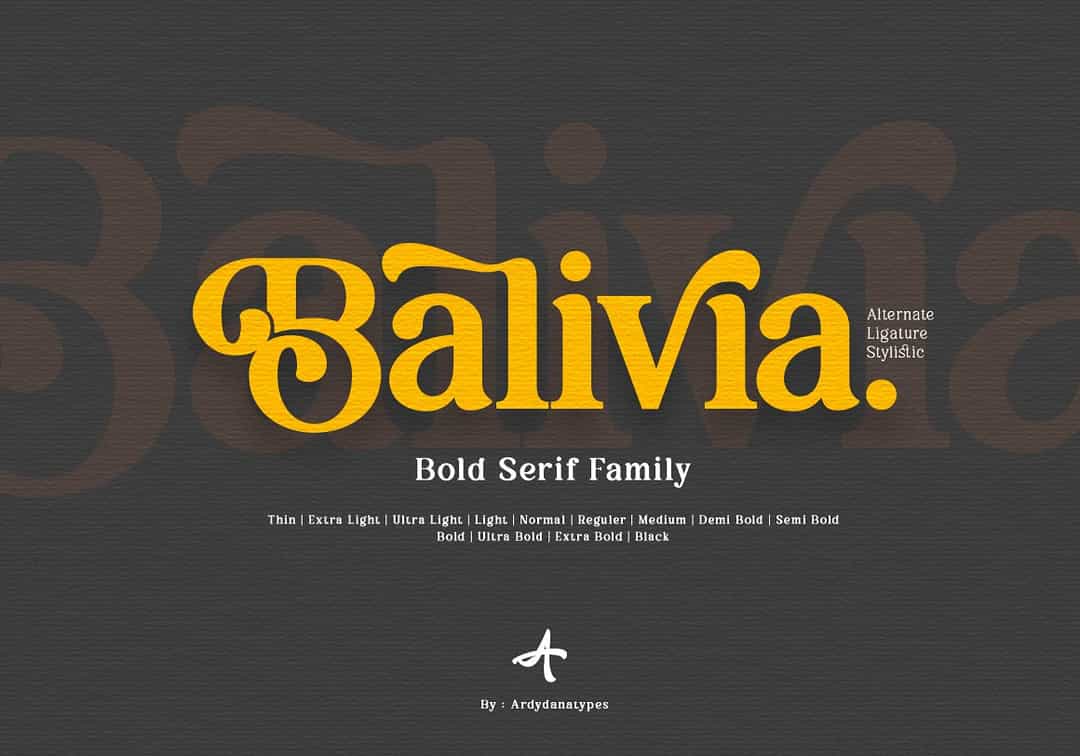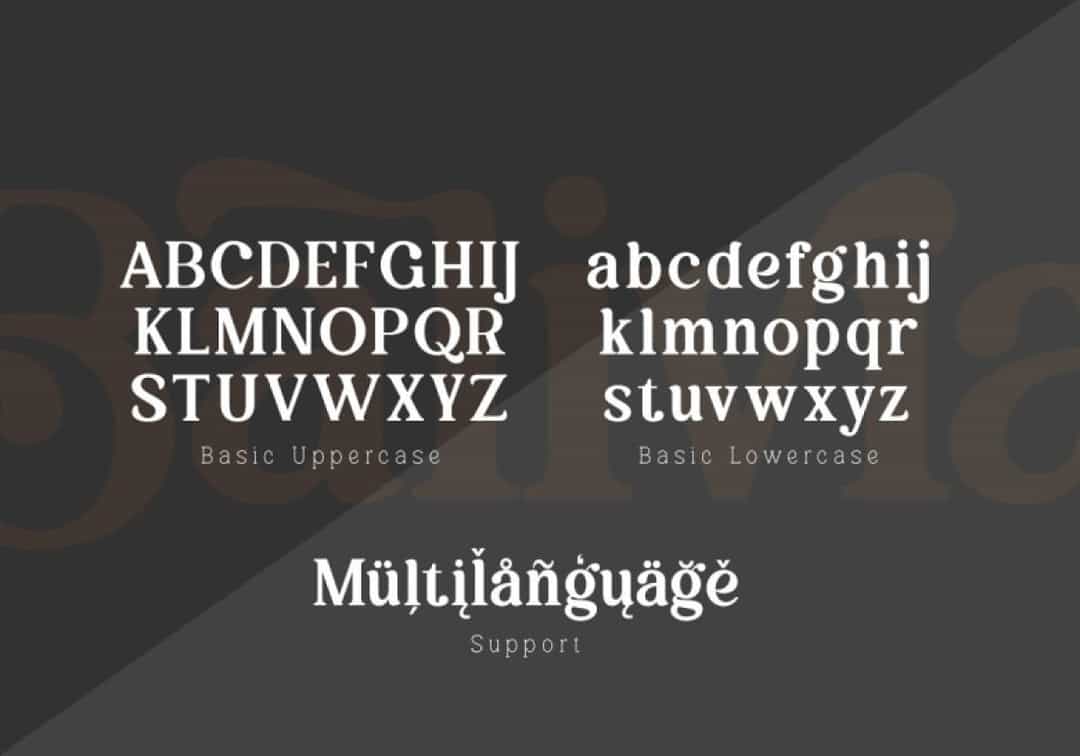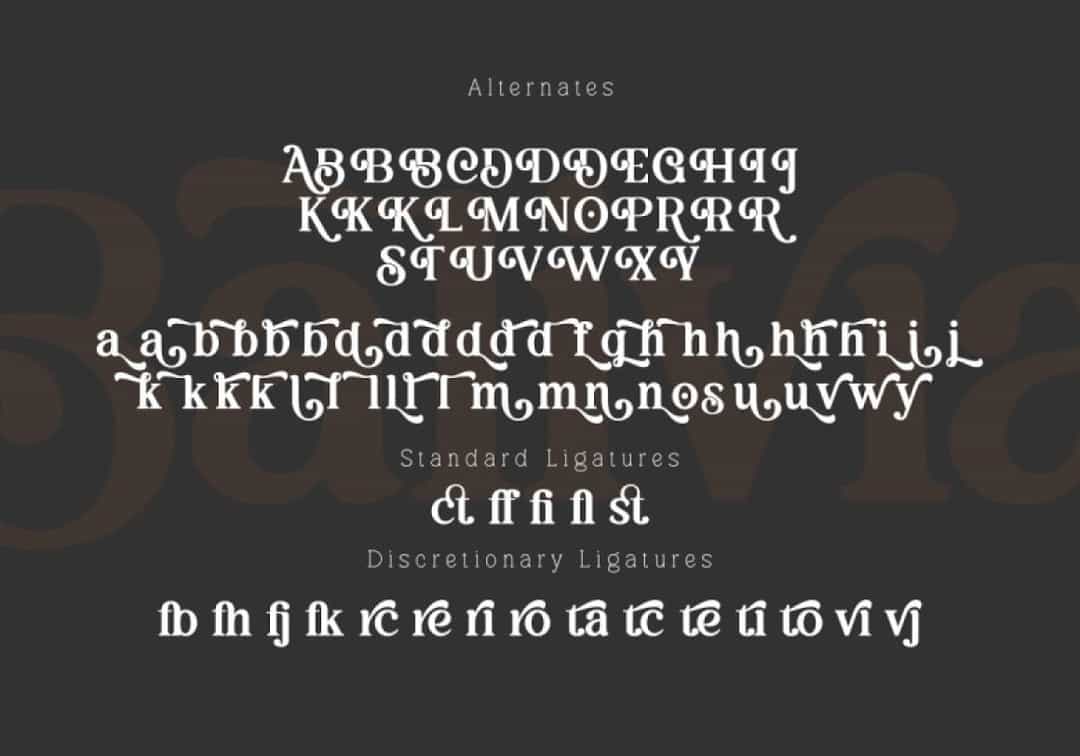
Balivia Bold Serif Font Family features various styles, ranging from light to bold. Each of these distinct font styles can add an elegant and contemporary feel to any design requirement and is an excellent addition.